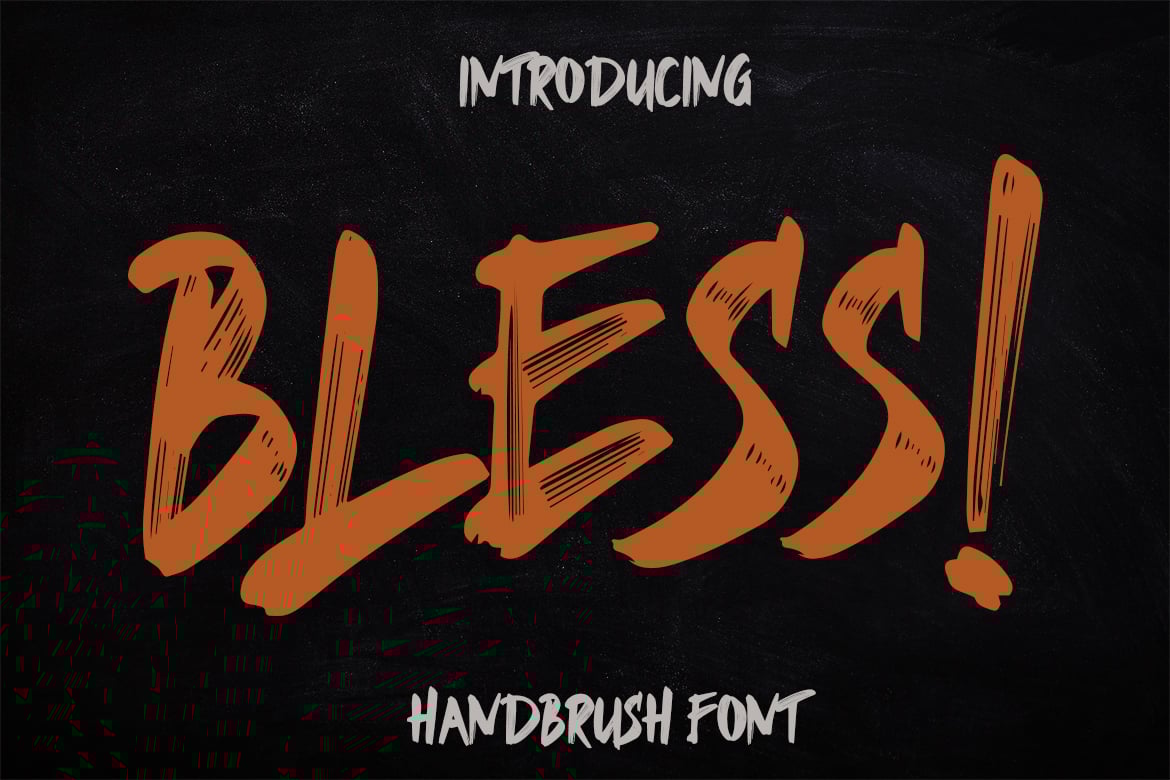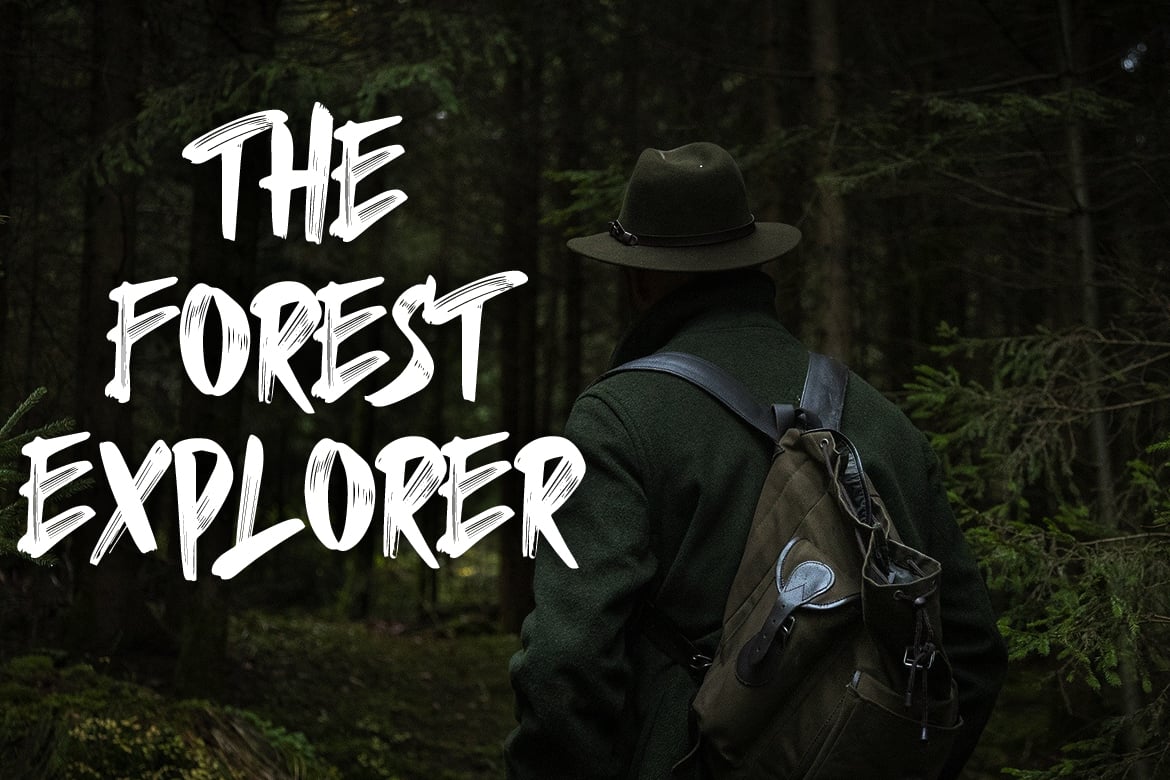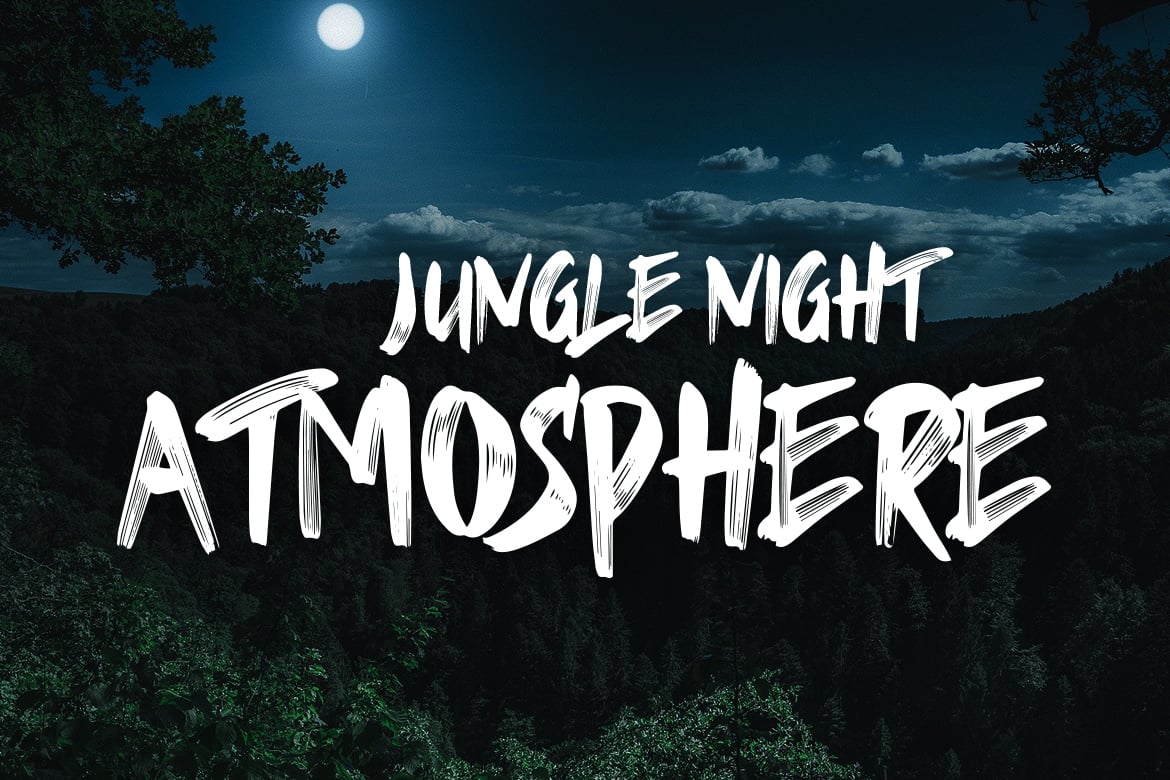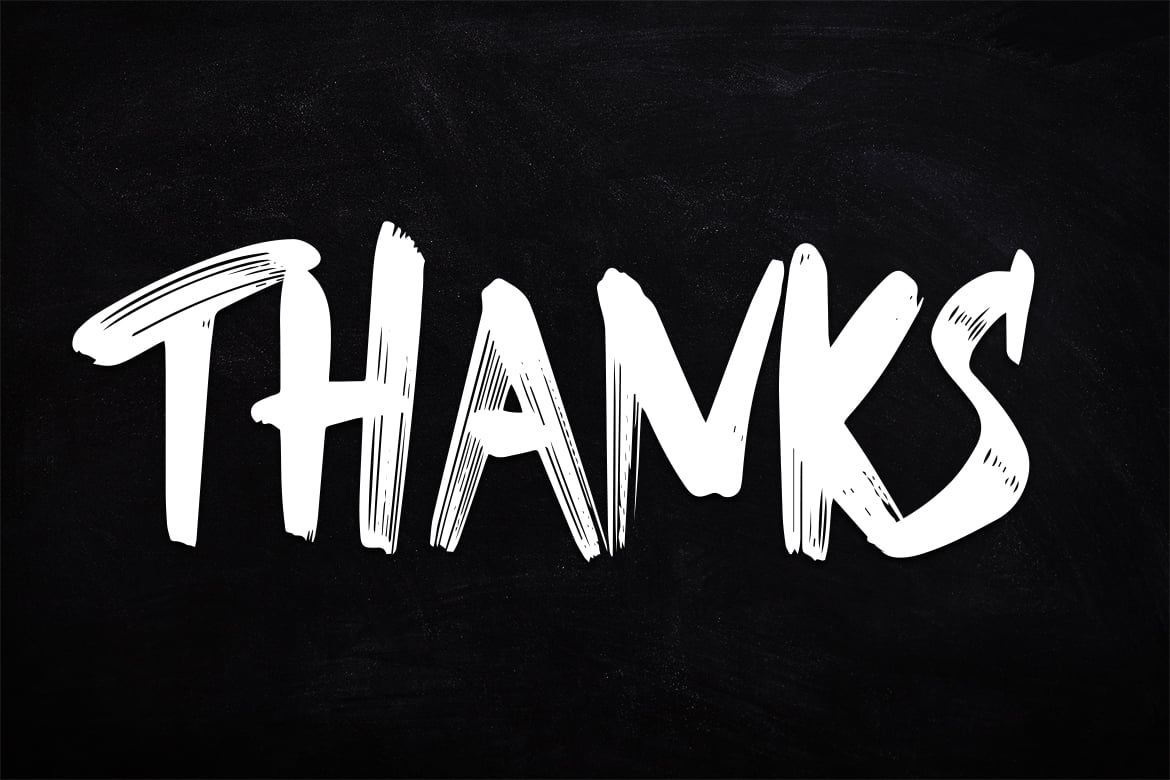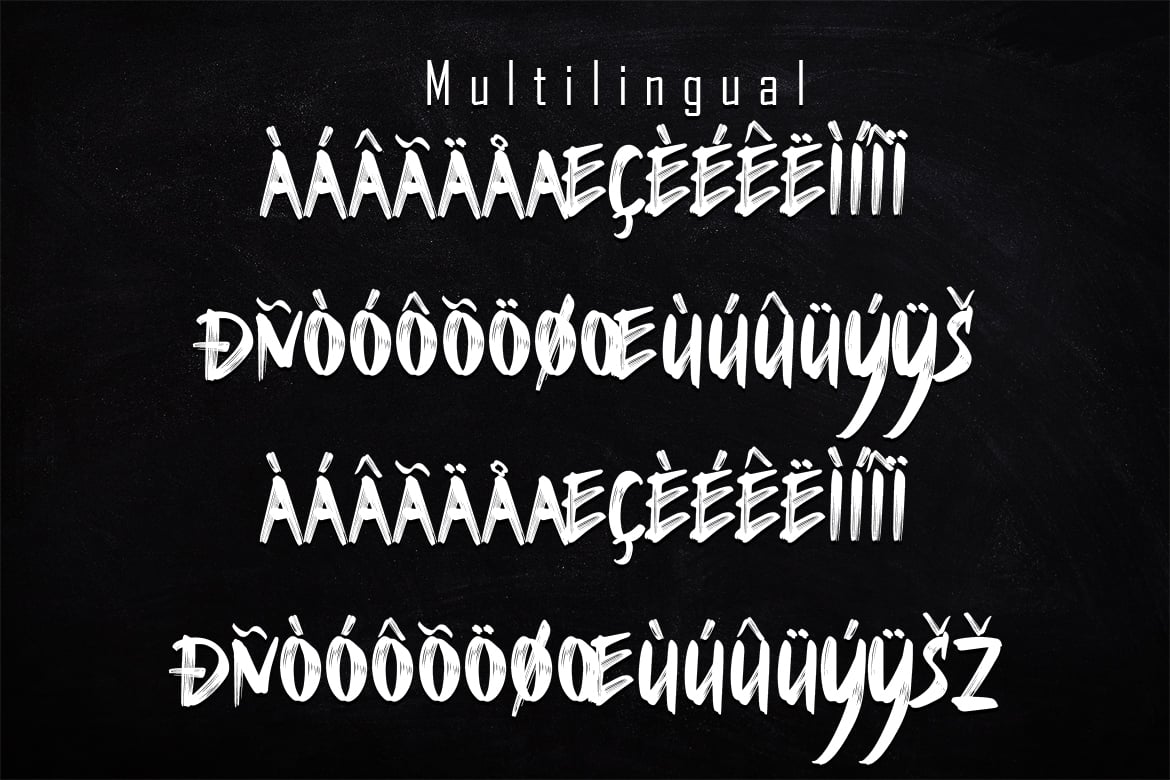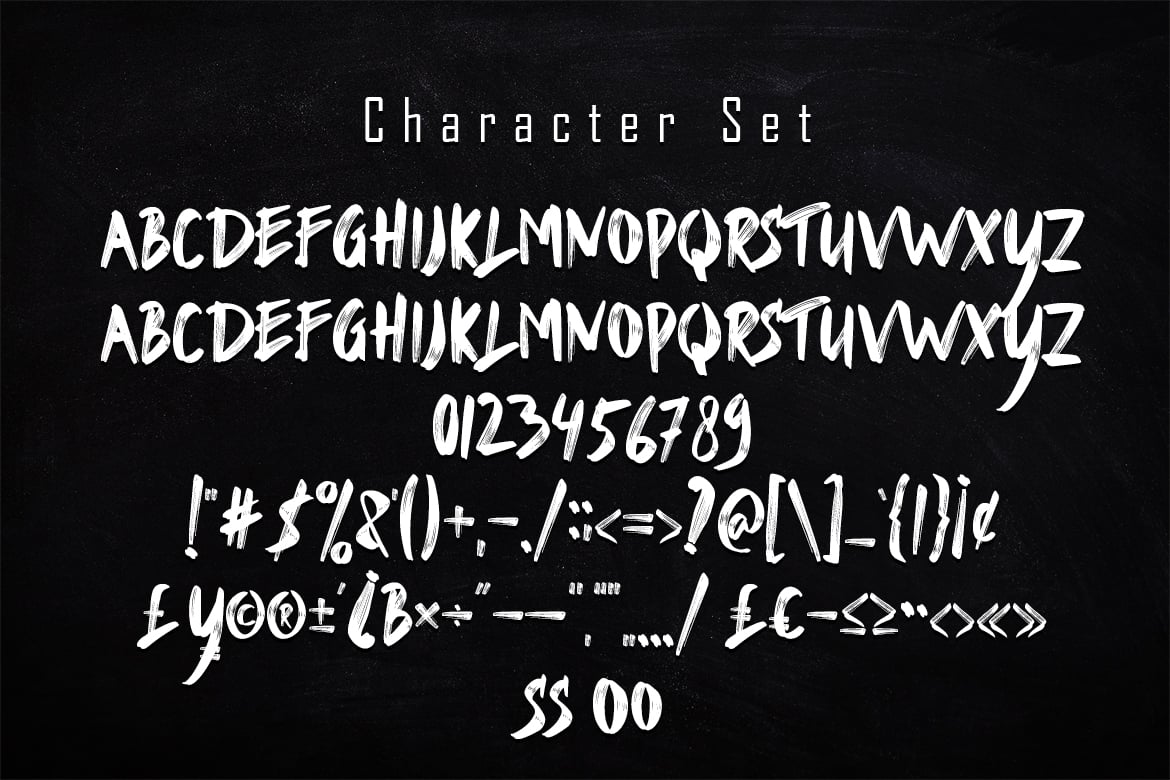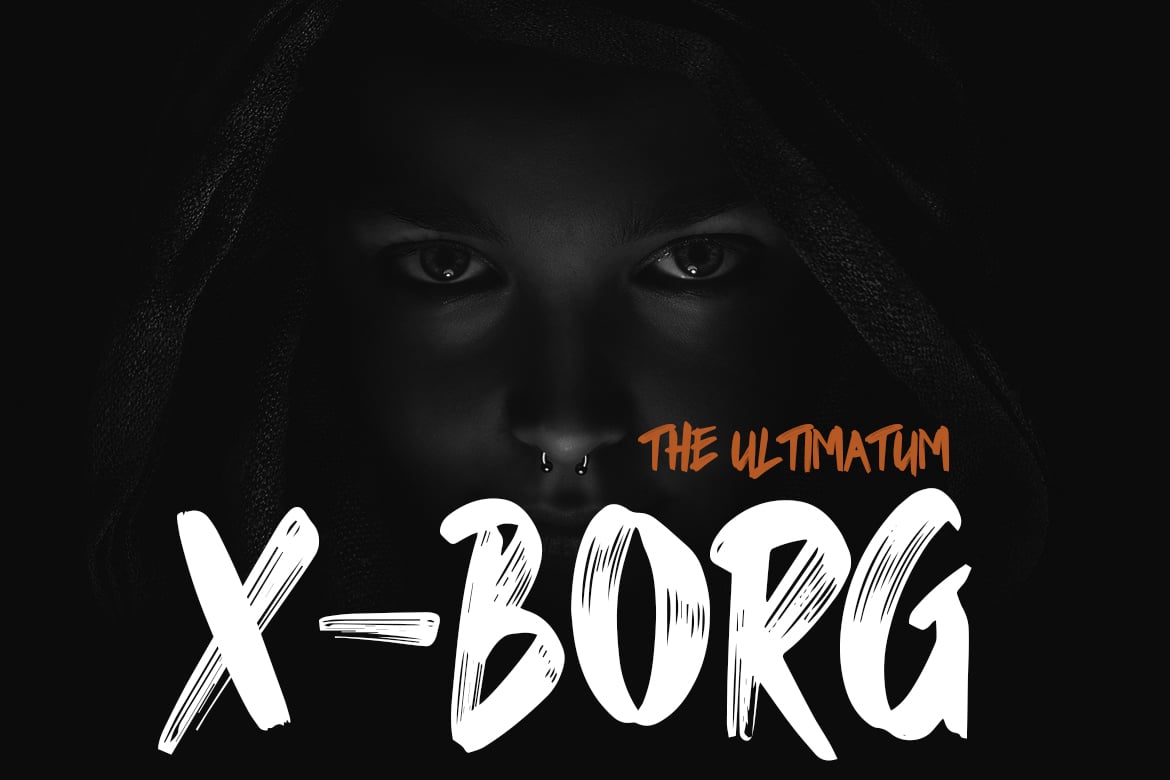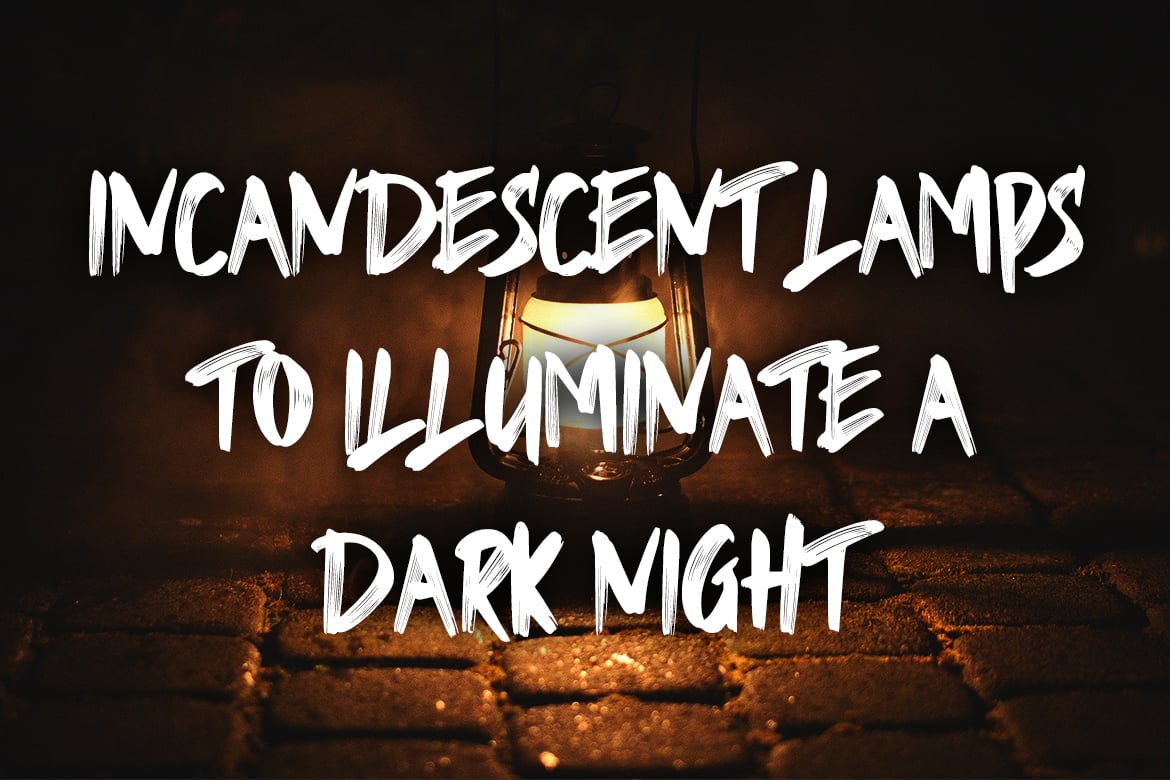
Bless Brush Font
BLESS is a brush font that has a beautiful brush-like texture accompanied by scratches like the original and this font supports encoded PUA and basic Multilinggual
Ligature
Basic Latin Language Support (AÀÁÂÃÄÅCÇDÐEÈÉÊËIÌÍÎÏÑOØÒÓÔÕÖUÙÜÚÛWYÝŸÆß )